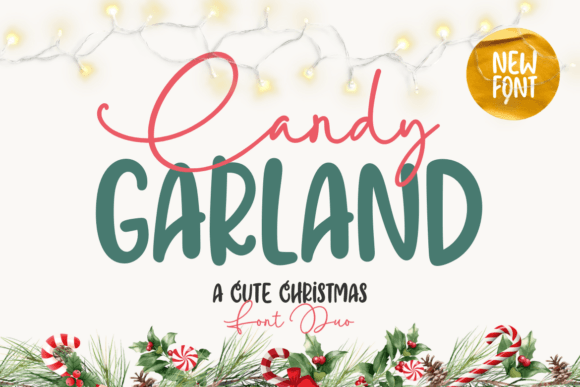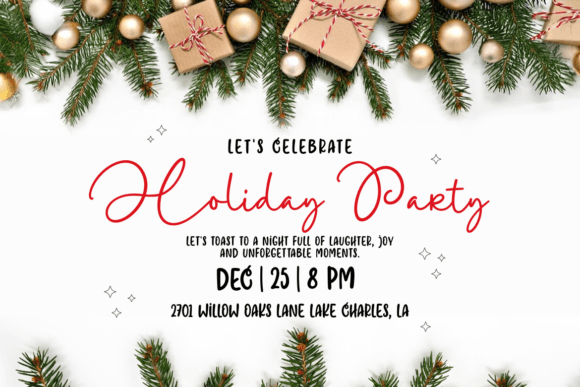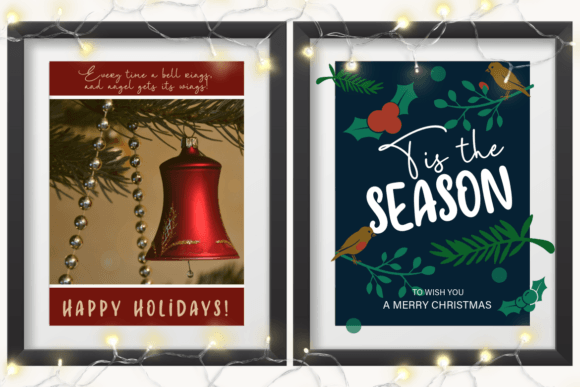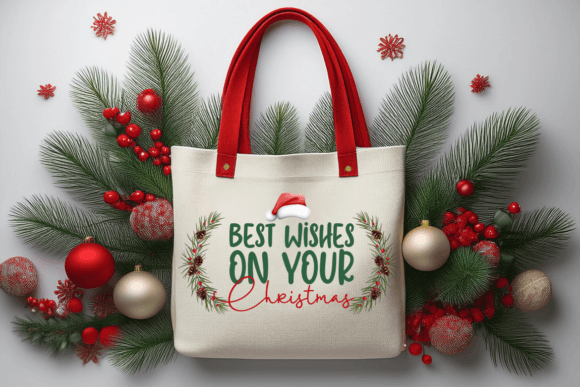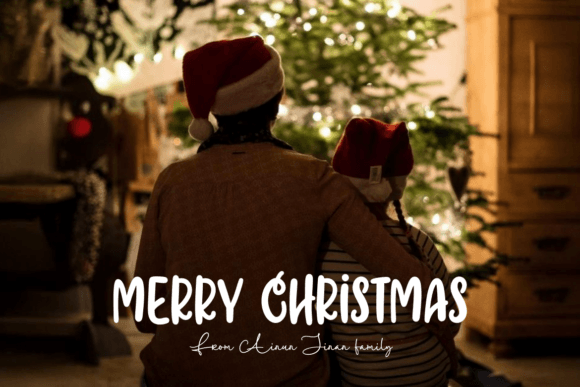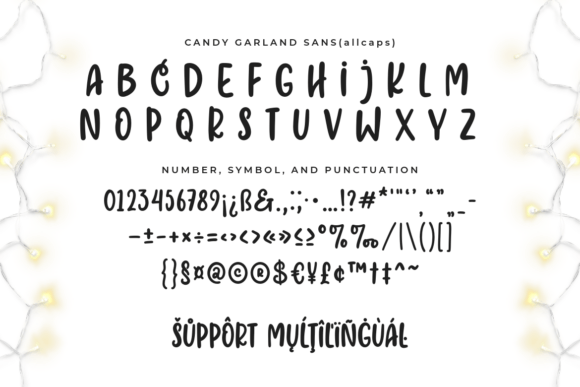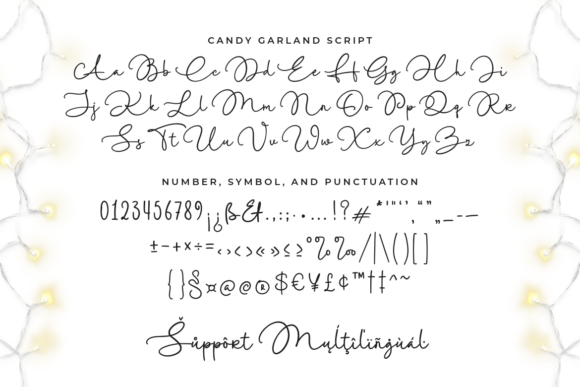
Candy Garland Duo Font
Candy Garland – A Charming Holiday Font Combination. Ignite the magic of the holidays with Candy Garland, an enchanting font duo designed for your yuletide creations! This distinctive twosome boasts: A lively sans serif typeface with audacious, smoothly rounded edges. It’s just what you need to make your headings jolly and luminous. A dreamy script typography, introducing a dash of sophistication and allure with its fluid, artisanal character. Ideal for holiday greeting cards, cheerful branding, decorative gift labels, captivating social media posts, and beyond! The extraordinary harmony of this duo generates enchanting designs that encapsulate the happiness of the holiday season. Allow Candy Garland to be the sparkling star atop your Christmas design endeavors!